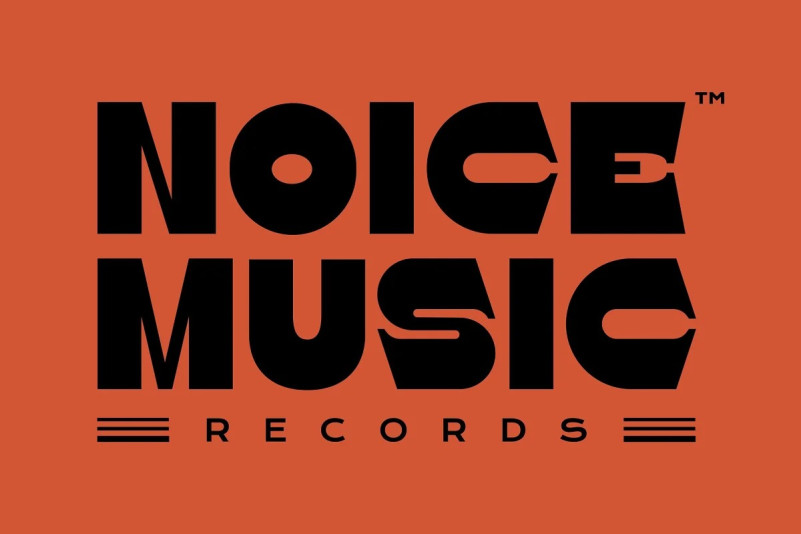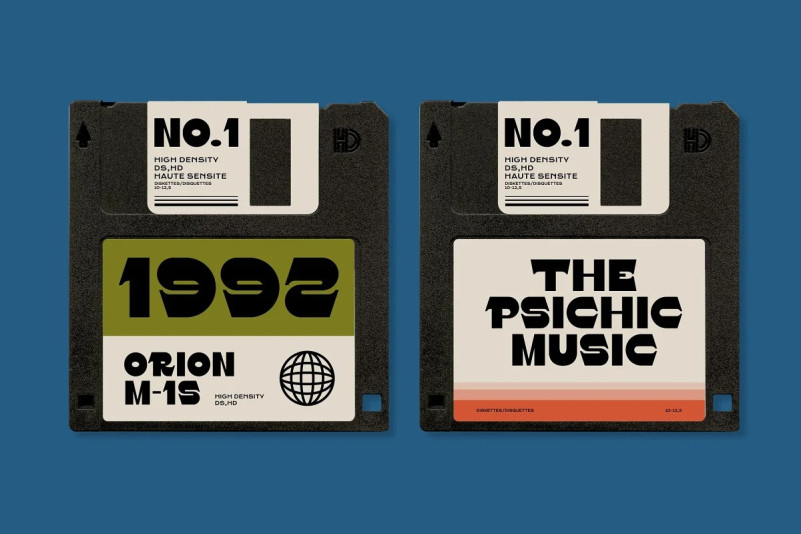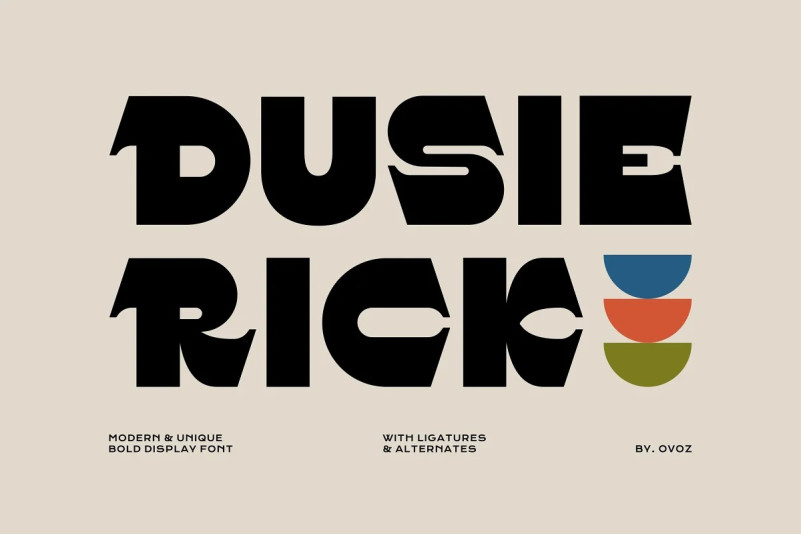
Dusie Rick – Display Typeface
Dusie rick is bold display fonts with visual elegance, smooth curves, and beautiful ligatures clear, making your work look true and attractive.
A versatile font that works in both large and small sizes. This font is suitable for a wide variety of projects such as invitations, logos, branding, magazine, social media post or story, cards, product packaging, mugs, quotes, poster, labels, signatures, websites, and more.